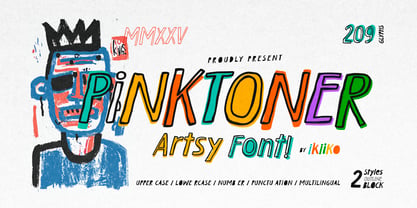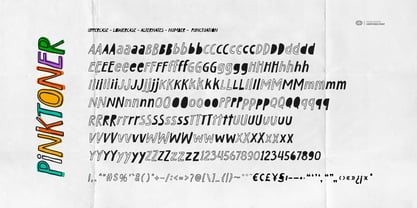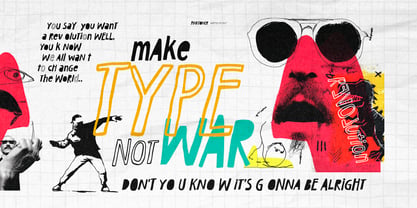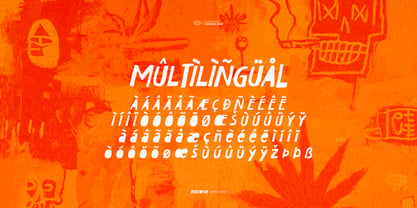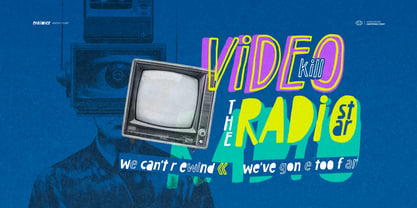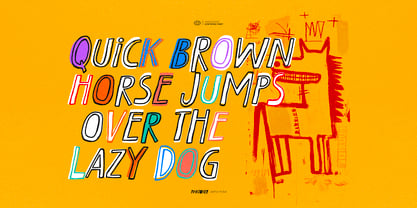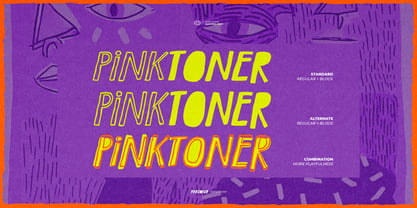
Pinktoner
by IKIIKOWRK
The Pinktoner Font Family was designed by Andhika Pradana and published by IKIIKOWRK. Pinktoner contains 2 styles and family package options. More about this family
Proudly Present Pinktoner - Artsy Font, created by ikiiko Unleash raw creativity with Pinktoner, an artsy hand-drawn font inspired by the rebellious energy of Jean-Michel Basquiat. Built with raw handdrawn strokes, this typeface carries an organic flow that feels rough, expressive, and youth-driven—perfect for designs that refuse to stay quiet. Pinktoner comes in two distinct styles: Regular (Outline Style) and Block. Use them separately, or combine both styles to create a more dynamic, organic, and artsy vibe in your typography. The dual-style system lets you layer, mix, and experiment to achieve designs that feel spontaneous yet full of character. With its organic roughness and artsy chaos, Pinktoner isn’t just a font—it’s a visual shout. Designed for the hipster generation, creatives, and dreamers who thrive on expressive typography and youth culture energy, this font delivers both style and attitude. Every letter is a piece of art, radiating edgy street vibes and unpolished energy. Its imperfect lines and spontaneous marks capture the fearless spirit of contemporary art, making it ideal for bold posters, art exhibition, urban fashion, branding, covers, zines, or creative campaigns that demand attention. What's Included? :: 2 Weights : Regular & Block :: Uppercase & Lowercase :: Numbers & Punctuation :: Alternates :: Multilingual Support :: Works on PC & Mac Get also a good offer & FREEBIE at our site Enjoy our font and if you have any questions, you can contact us by email
Designers: Andhika Pradana
Foundry: IKIIKOWRK